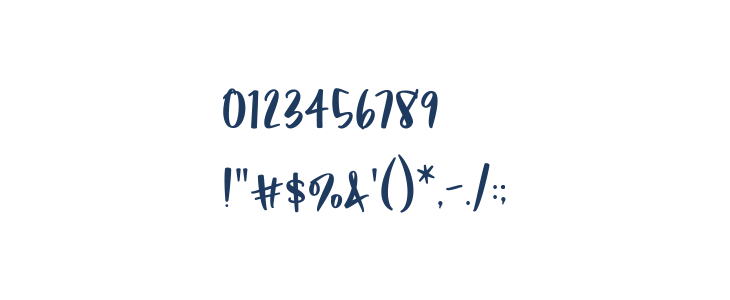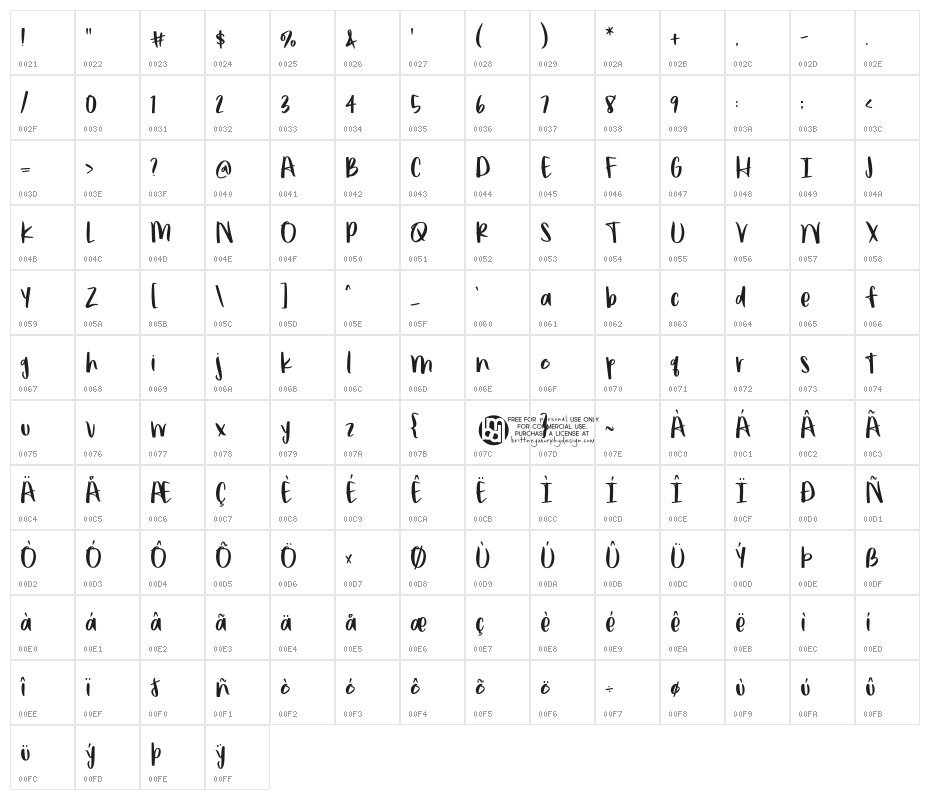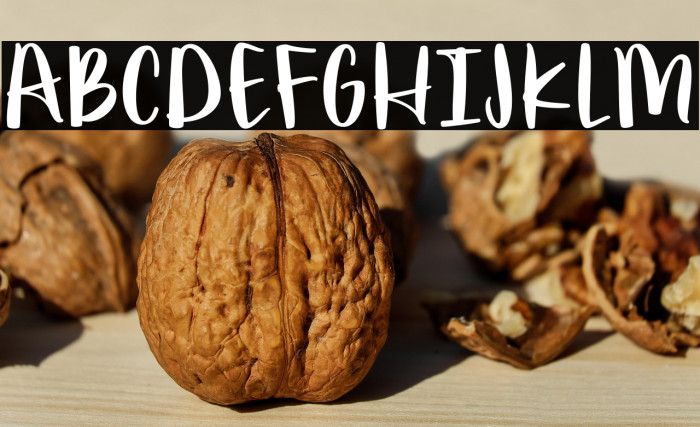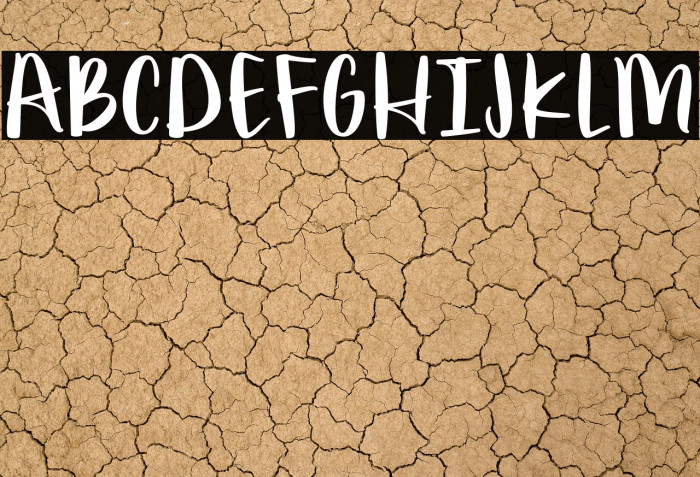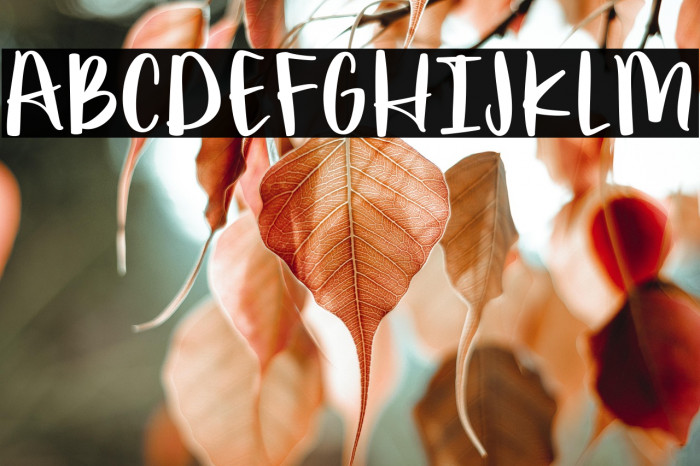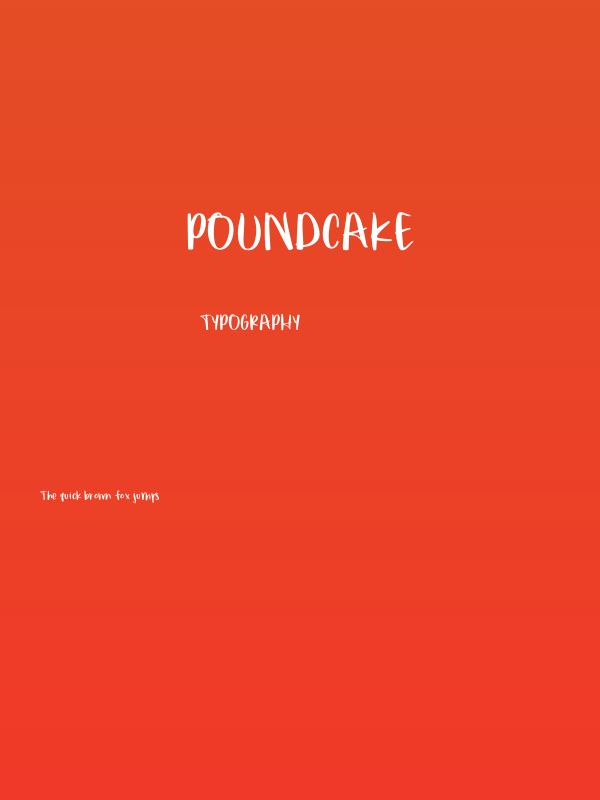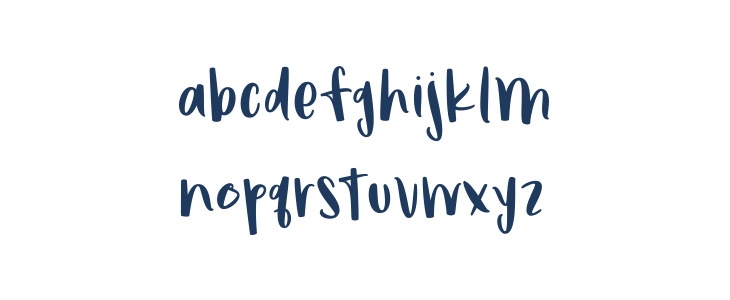
poundcake Font
poundcake Description
This font features a playful and energetic handwritten style, characterized by its bold and slightly irregular strokes. The letters have a casual, friendly appearance, with a mix of rounded and angular forms that give it a dynamic feel. The uppercase and lowercase letters maintain a consistent style, while the numerals and special characters integrate seamlessly with the overall design. The font's informal and lively nature makes it suitable for projects that require a personal touch or a sense of fun.